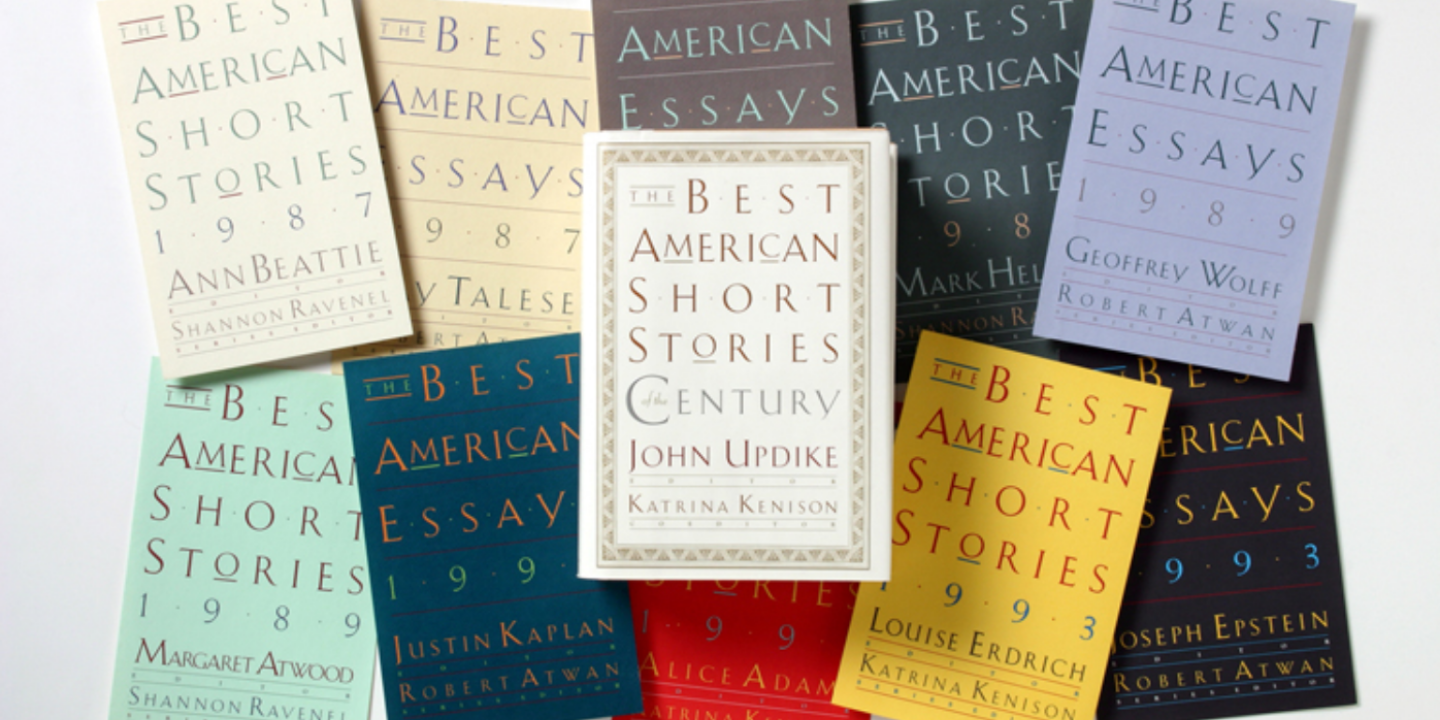
Schneidler Initials Free Download
Schneidler Initials Font Free Download
Schneidler Initials Font Free Download is an elegant and sophisticated initials font perfect for adding a refined, personalized touch to your designs. Please note: you must purchase a license for commercial use — this font is available as a free download for testing and personal use only.
Ideal for monograms, wedding invitations, luxury branding, signature logos, stationery, and personalized gifts, Schneidler Initials Font Free Download brings timeless class and style to any project.
What makes this font exciting is its delicate curves and exquisite craftsmanship, offering a beautiful balance between classic calligraphy and modern minimalism. It elevates initials into elegant works of art.
The Schneidler Initials font family includes a variety of stylistic alternates and ligatures, giving you creative freedom to customize your typography with flair and sophistication.